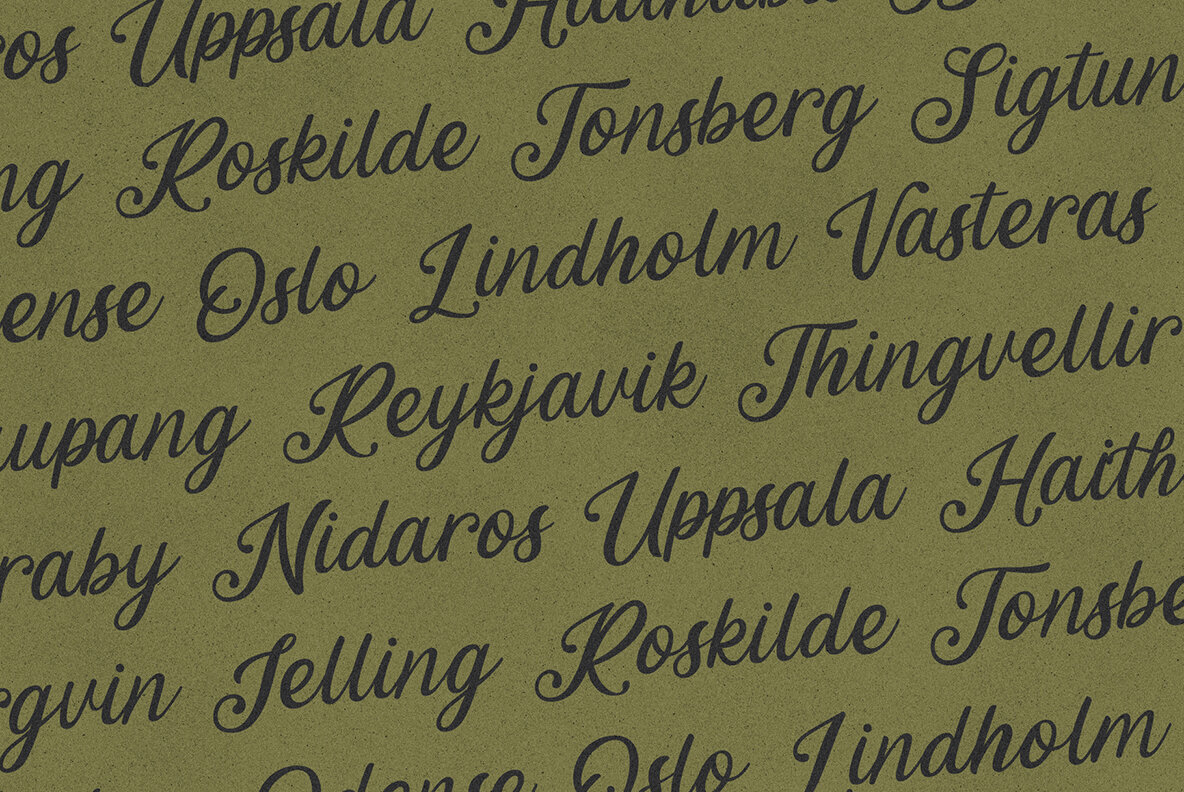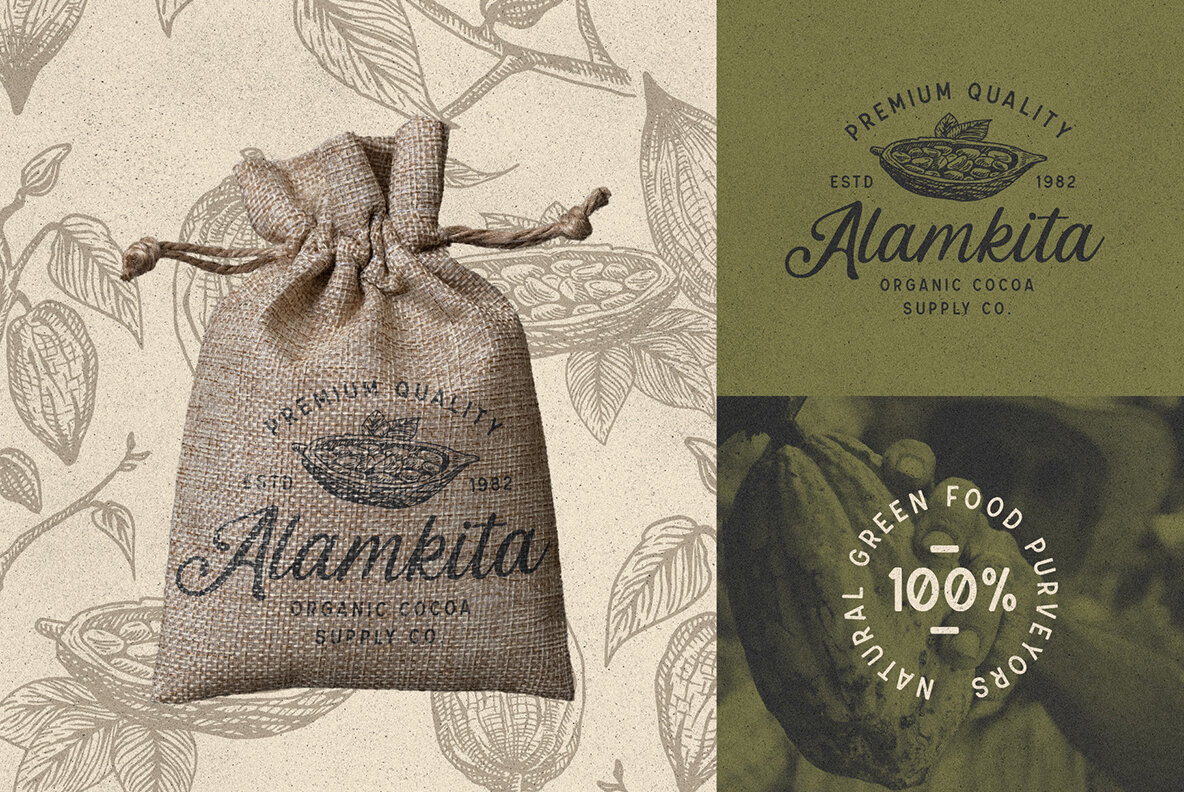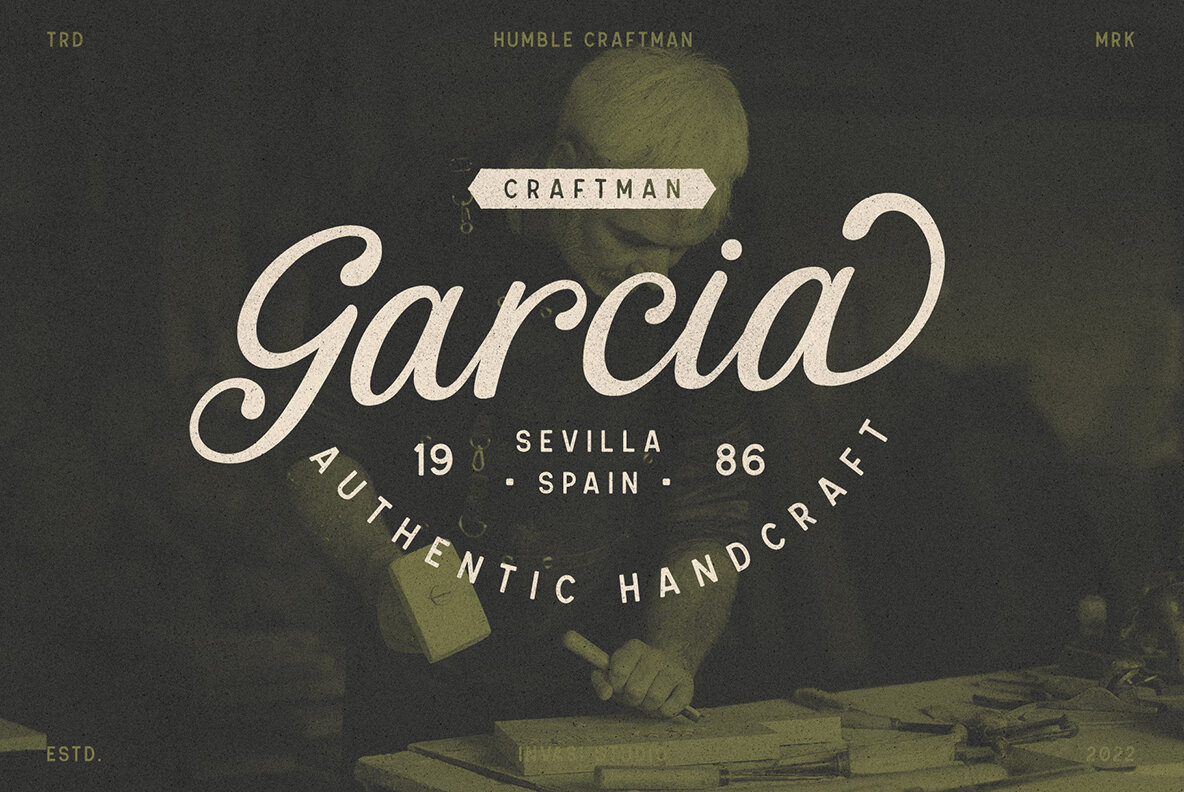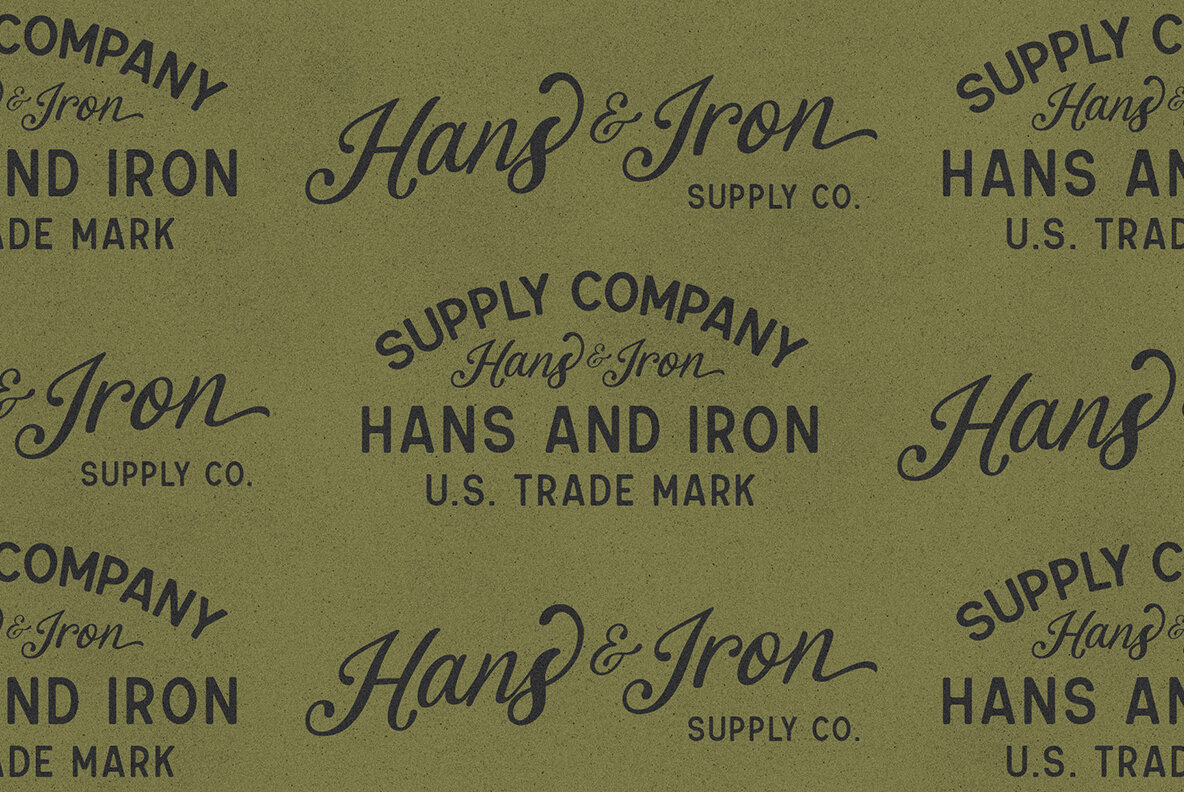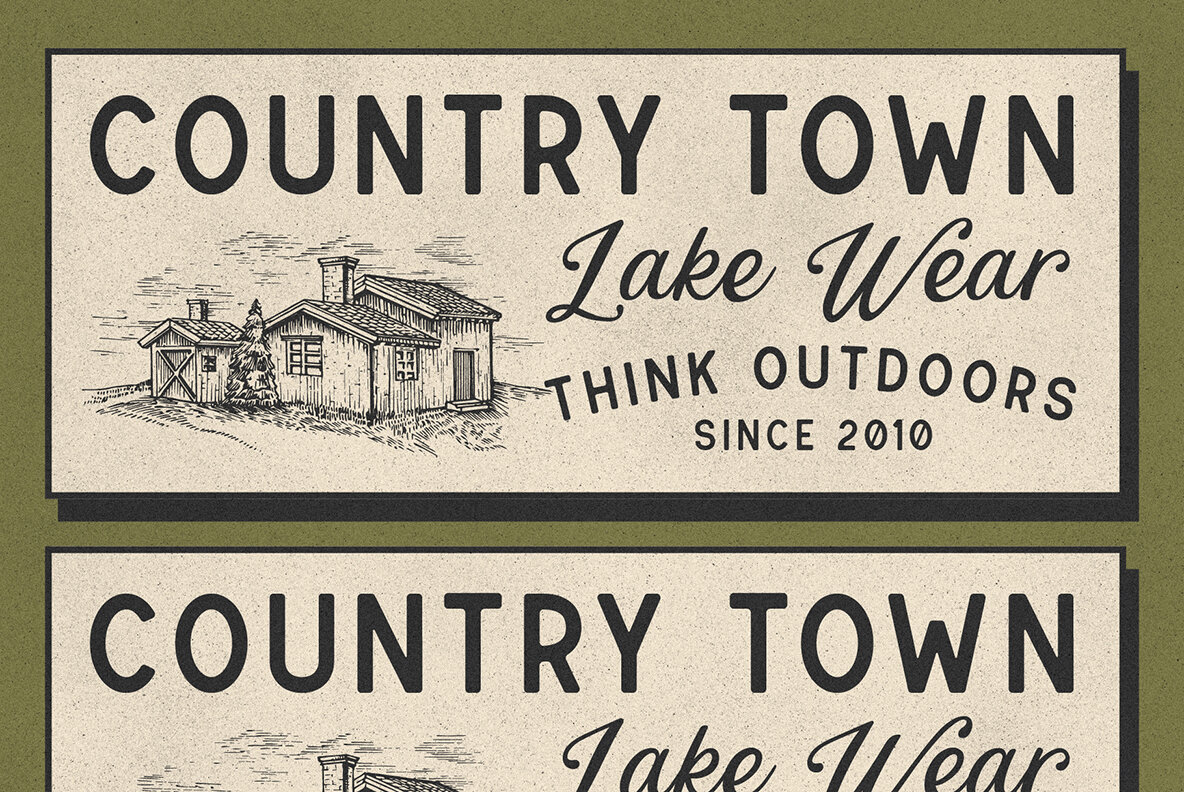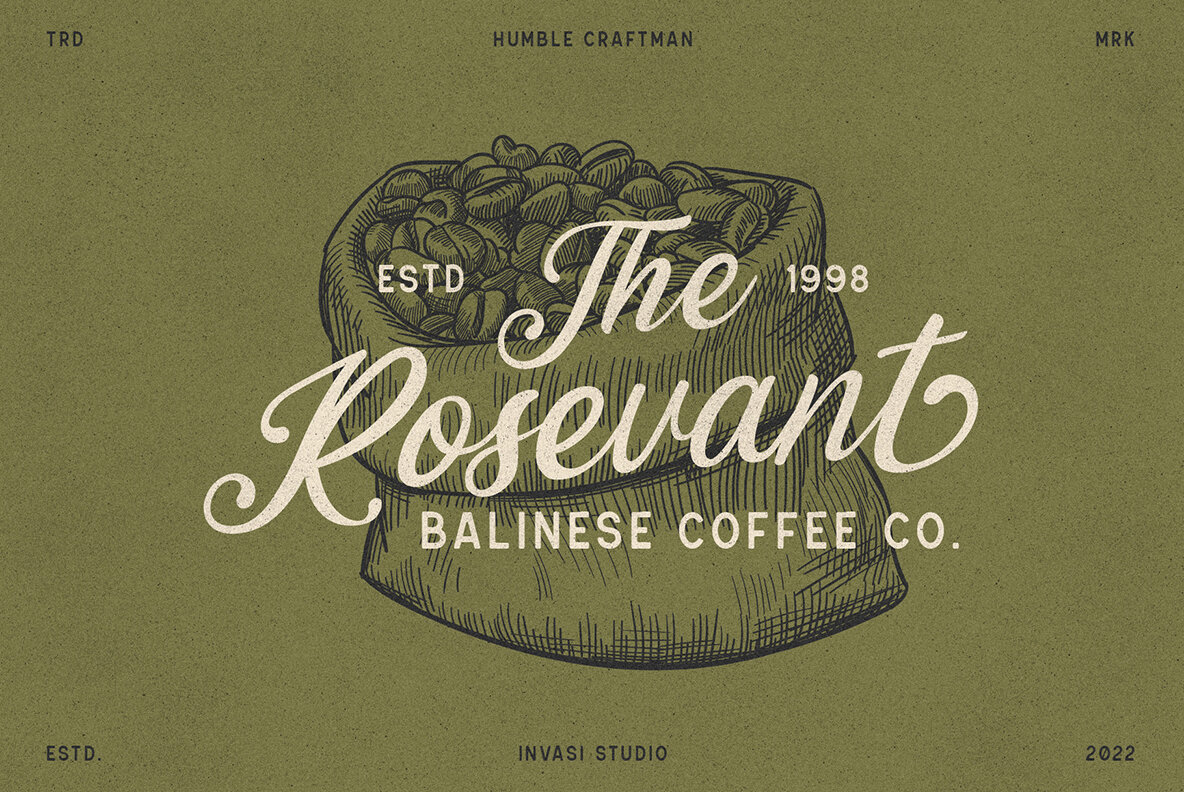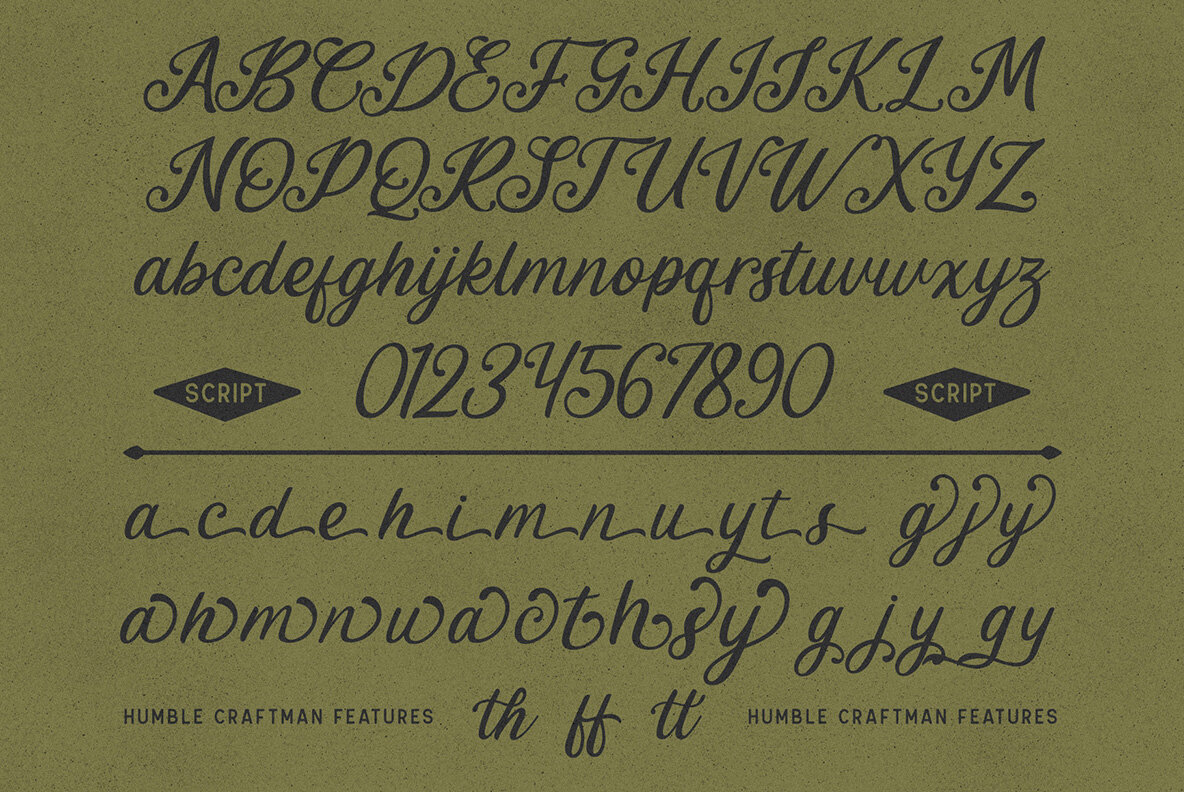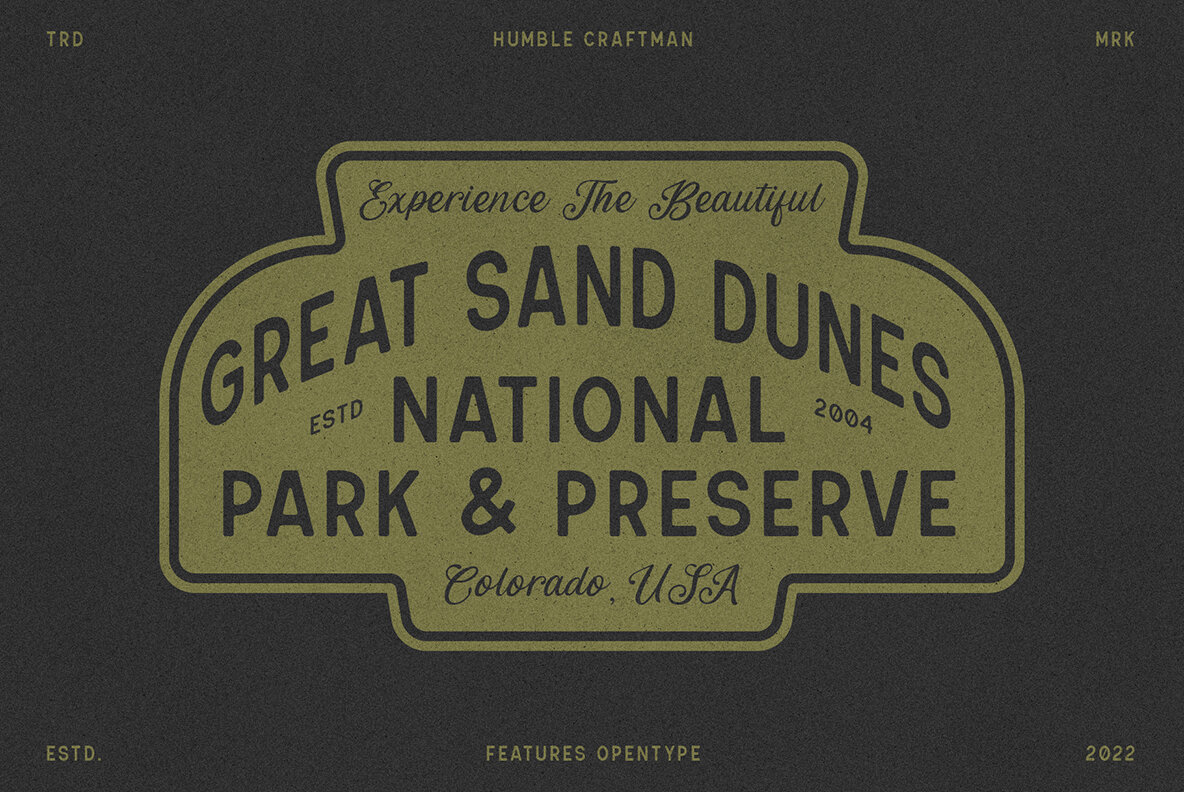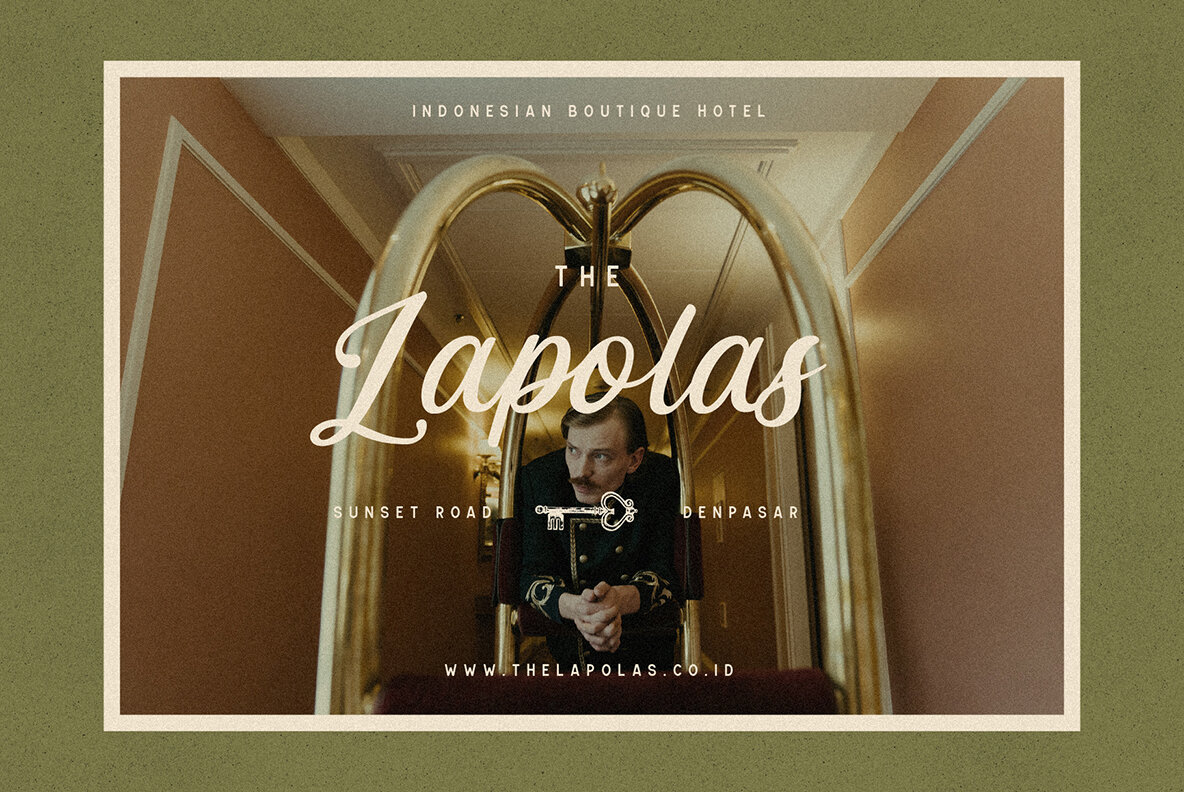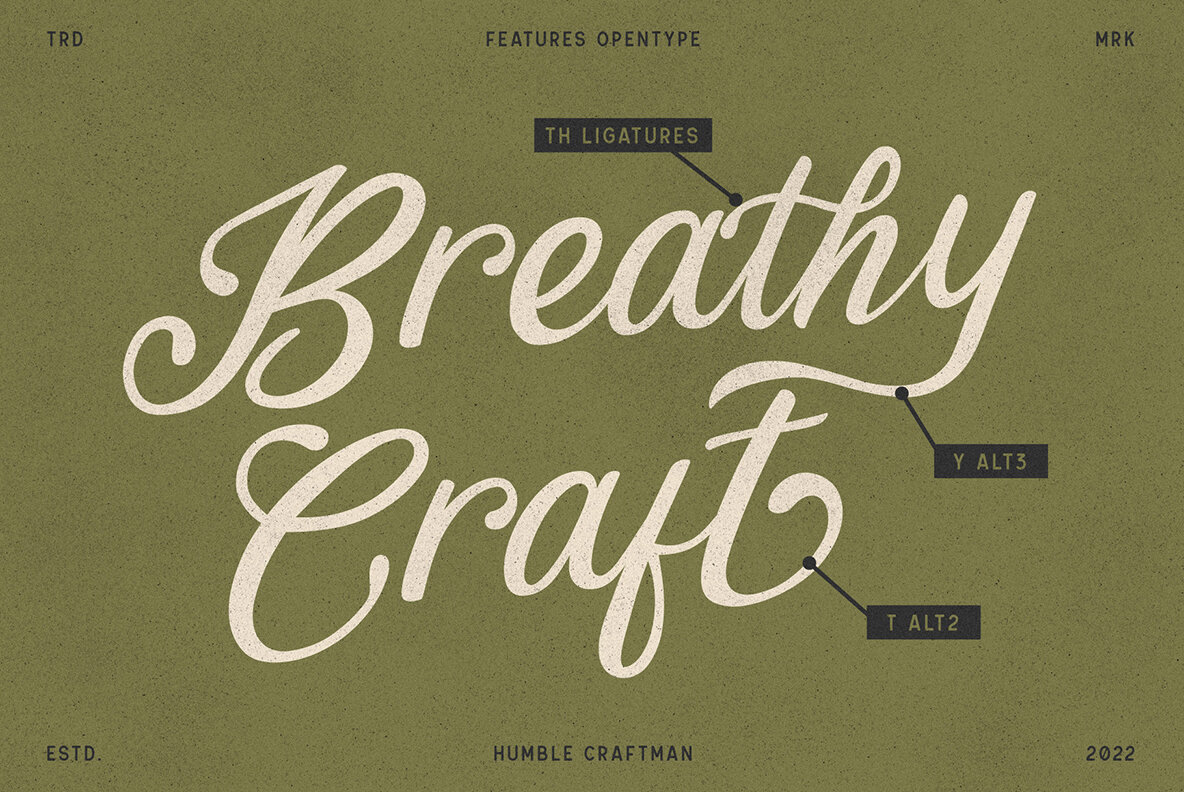
Humble Craftman Font
Humble Craftman is a super trendy and stylish font. The swash-like script letters will make your design come to life with their interesting touch!